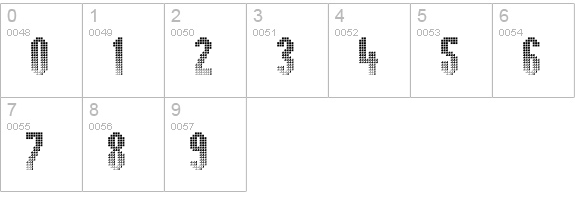
Delusion Font Details
Delusion font is a captivating and whimsical typeface that will add a touch of magic to your projects. With its elegant curves and playful details, this font is perfect for any design that needs a hint of mystery and charm. Delusion font is versatile and can be used for a variety of purposes, from branding to invitations to social media graphics. The best part is that Delusion font is completely free to download at FontsMarket.com. Whether you're a seasoned designer looking to add a new font to your collection or just starting out and exploring different typographic styles, Delusion font is a fantastic choice. Don't miss out on this enchanting and unique font - download it today and let your creativity soar!